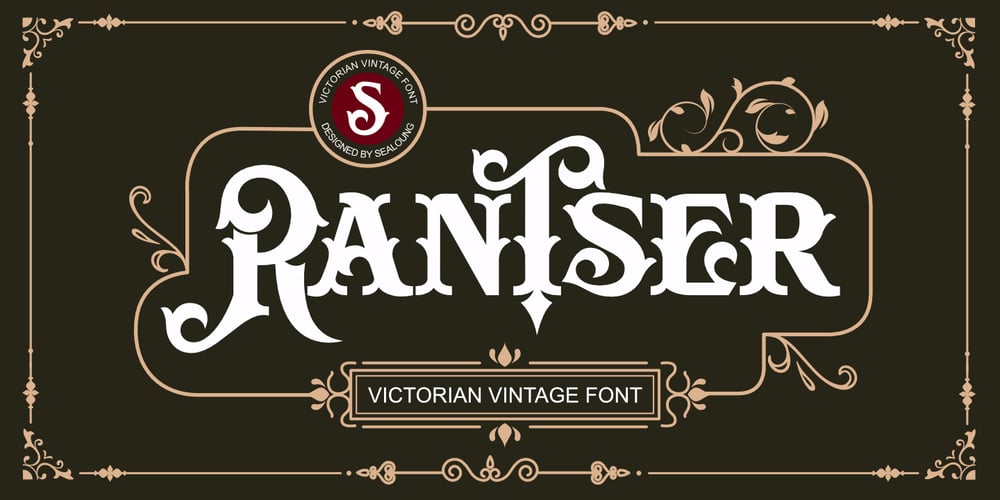
Rantser
Rantser font
Rantser Font Family was designed by Saiful Anwar and published by Sealoung. Rantser contains 1 styles and family package options. Make your designs look memorable, vintage, and classy with the Rantser Victorian typeface. It’s an easy way to bring old memories into your documents, posters, logos, and more. A perfect choice for a classical style.Very Victorian, ornamental, decorative, and classical. This solid combination can transport your designs, logos, documents, websites, and more back to the 1800s. It comes with both and decorative modern style versions. Features : Alternate characters for uppercase and lowercase are ready to decorate your logo Numerals & Punctuations Multilingual Language Works on PC & Mac Simple installations Accessible in the Adobe Illustrator, Adobe Photoshop, Adobe InDesign, even works on Microsoft Word.Thank you for your support!